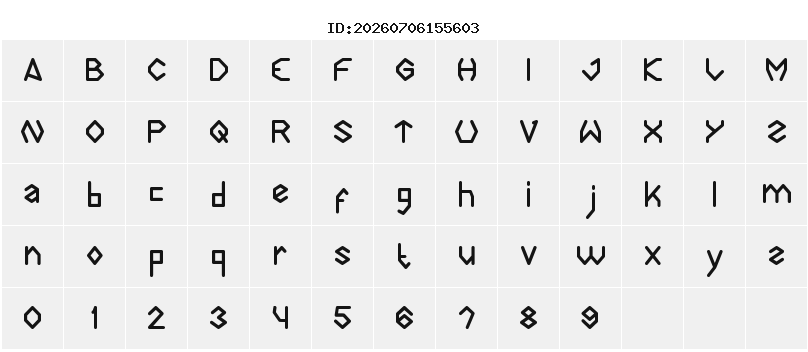
• Font Name: Diamonds are forever
About Diamonds are forever.ttf
Diamonds are forever.ttf is a modern, elegant sans-serif font designed for ultimate readability and visual harmony. Perfect for branding, headlines, web design, and print materials.